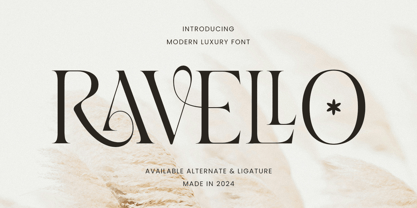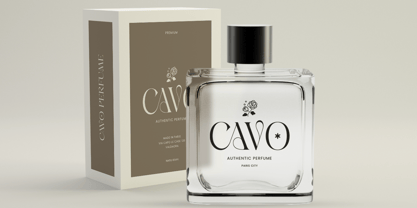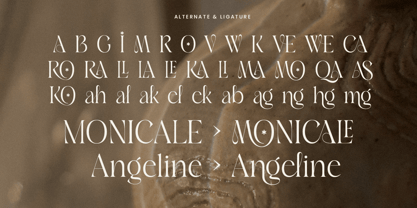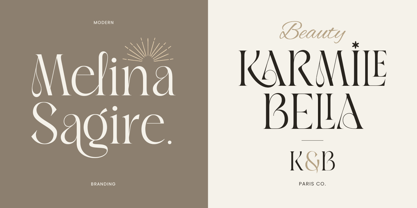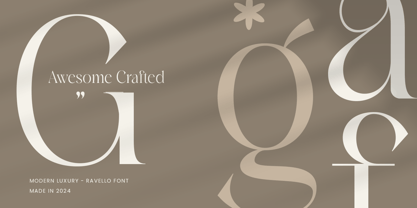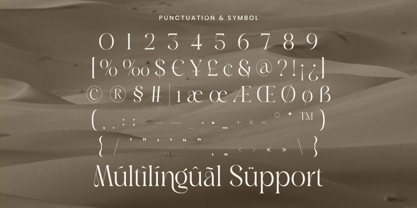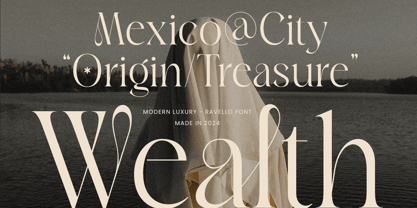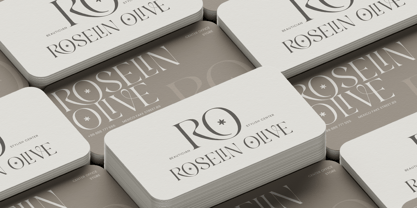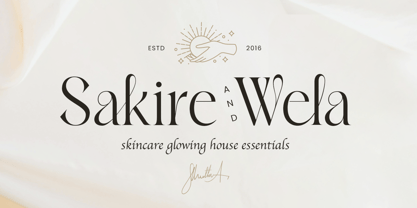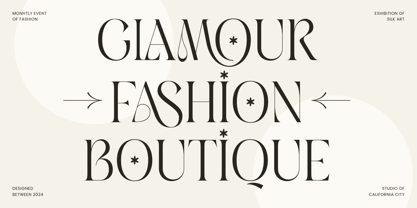
Ravello
by Sensatype Studio
Ravello - Modern Luxury Font
Ravello is a refined, modern font created to bring a luxurious touch to your projects. With sleek lines and an elegant design, Ravello is crafted to meet the needs of high-end branding, chic logo design, and sophisticated visual storytelling. Each character has been expertly styled to showcase beauty and sophistication, making Ravello an ideal choice for exclusive brands and projects.
Inspired by contemporary aesthetics, Ravello effortlessly combines modern flair with timeless appeal. It is perfect for a wide range of applications, from fashion and beauty brands to editorial layouts and premium product packaging. This font embodies sophistication, allowing you to communicate a refined and memorable message.
Elevate your designs with Ravello—a font that offers a versatile, polished look that will captivate audiences and set your work apart. Ideal for both print and digital use, Ravello is the ultimate font for achieving an upscale, professional aesthetic.
Ravello Modern Luxury Font Features:
• Sleek Ligature Characters Ready
• Uppercase and Lowercase
• Opentype Features